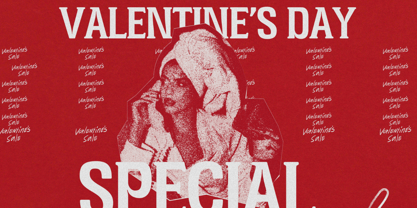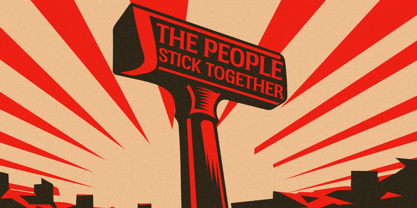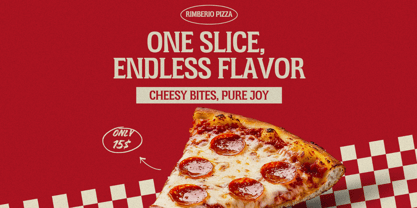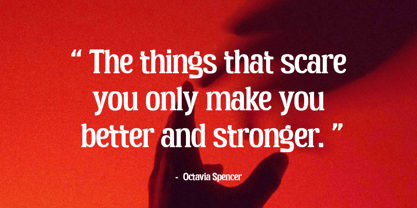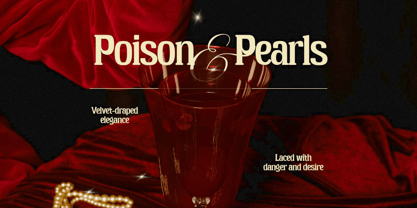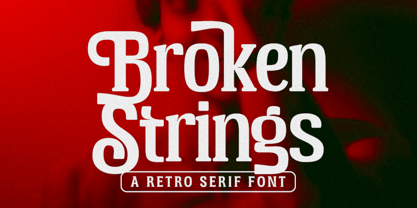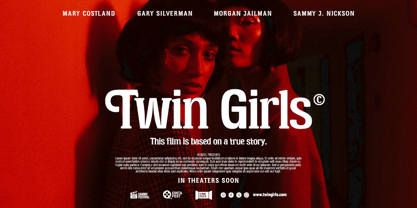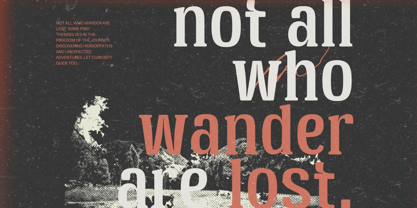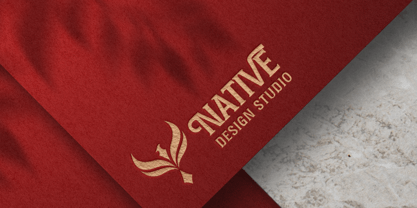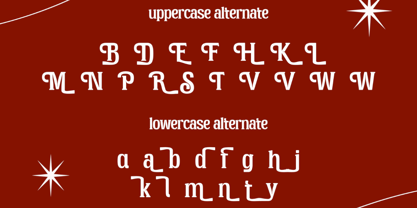
Broken Strings
by Heinzel Std
The Broken Strings Font Family was designed by Nofi Sofyan Hadi and published by Heinzel Std. Broken Strings contains 2 styles and family package options.
Broken Strings is a bold retro serif font that captures nostalgic charm with expressive character shapes and classic proportions. Inspired by vintage posters, album covers, and timeless print design, this font blends strong serif details with a slightly playful, handcrafted feel. Its distinctive curves and confident letterforms make Broken Strings perfect for branding, logos, headlines, packaging, posters, apparel, and editorial designs. With a warm retro personality and modern readability, Broken Strings adds character, emotion, and authenticity to any creative project.